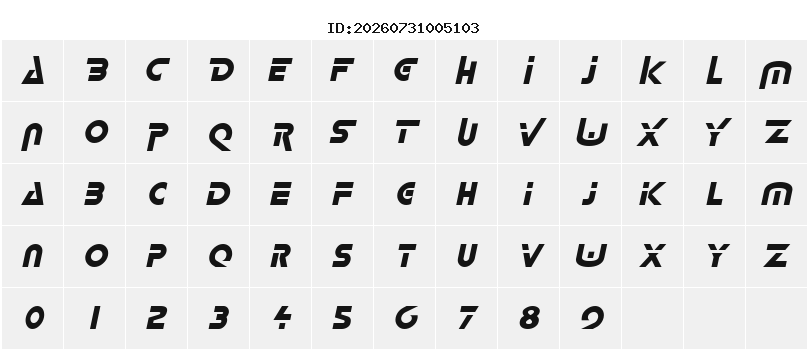
Logash Preview
• Font Name: Logash
• Font Style: Italique
• Font ID: Weatherly Systems, Inc. Logash Italic
• Full Font Name: Logash Italique
About Logash.ttf
Logash.ttf is a modern, elegant sans-serif font designed for ultimate readability and visual harmony. Perfect for branding, headlines, web design, and print materials.